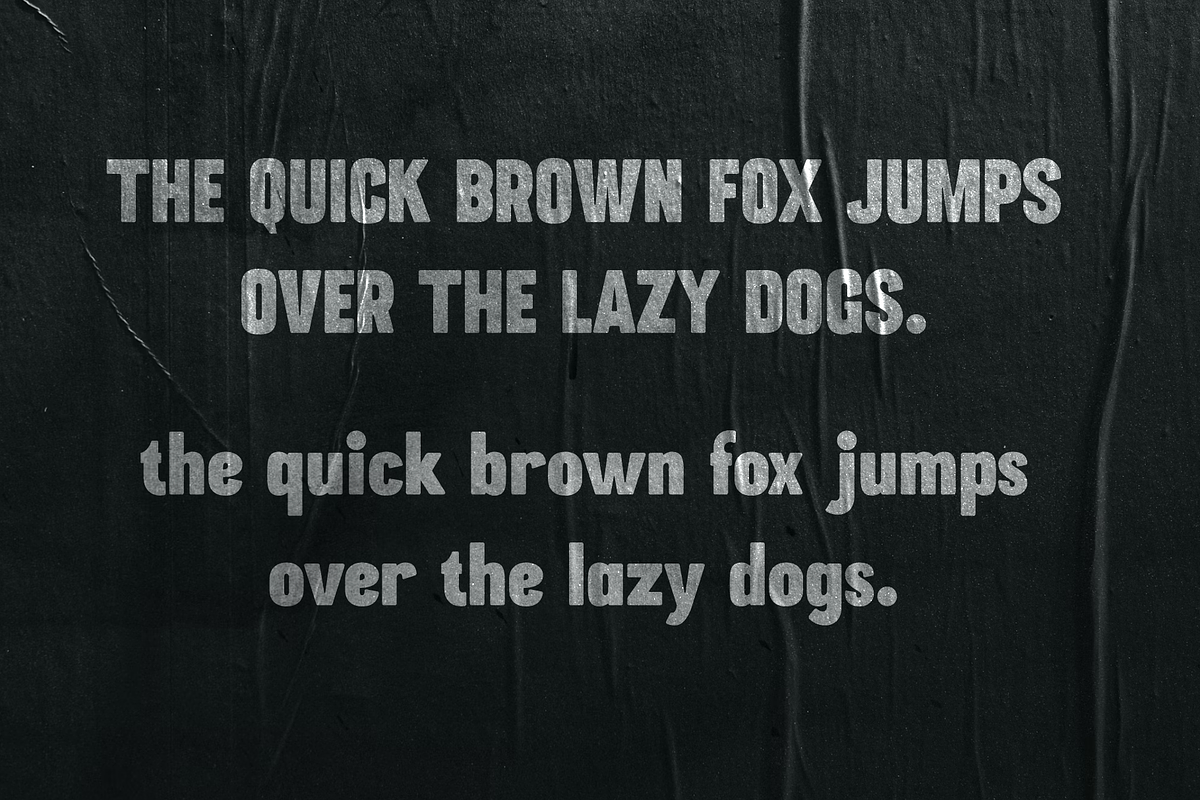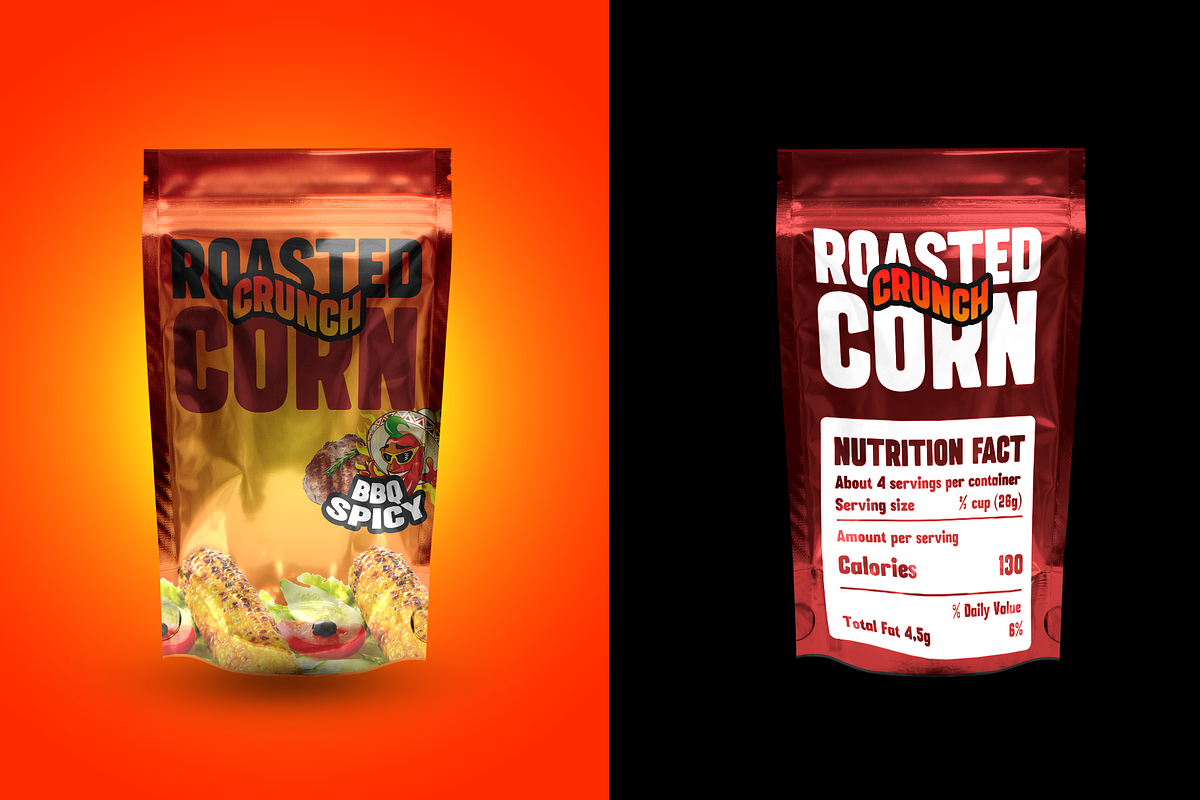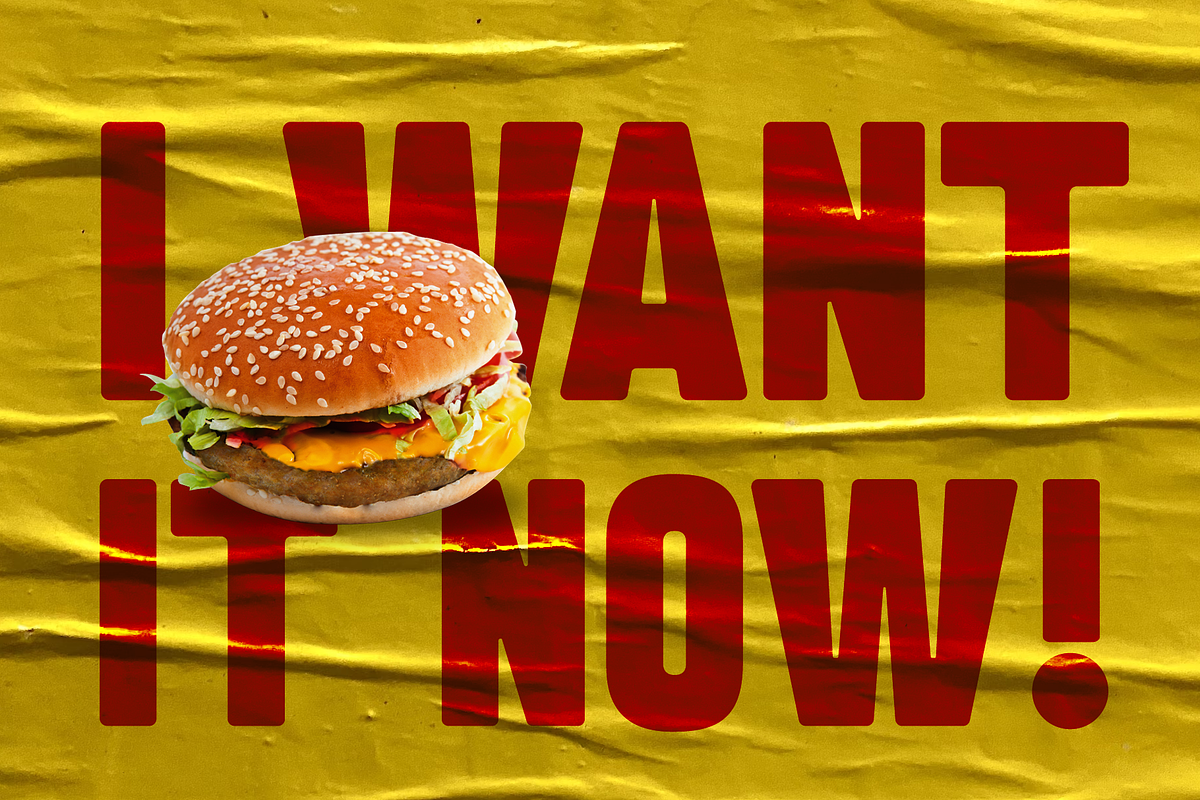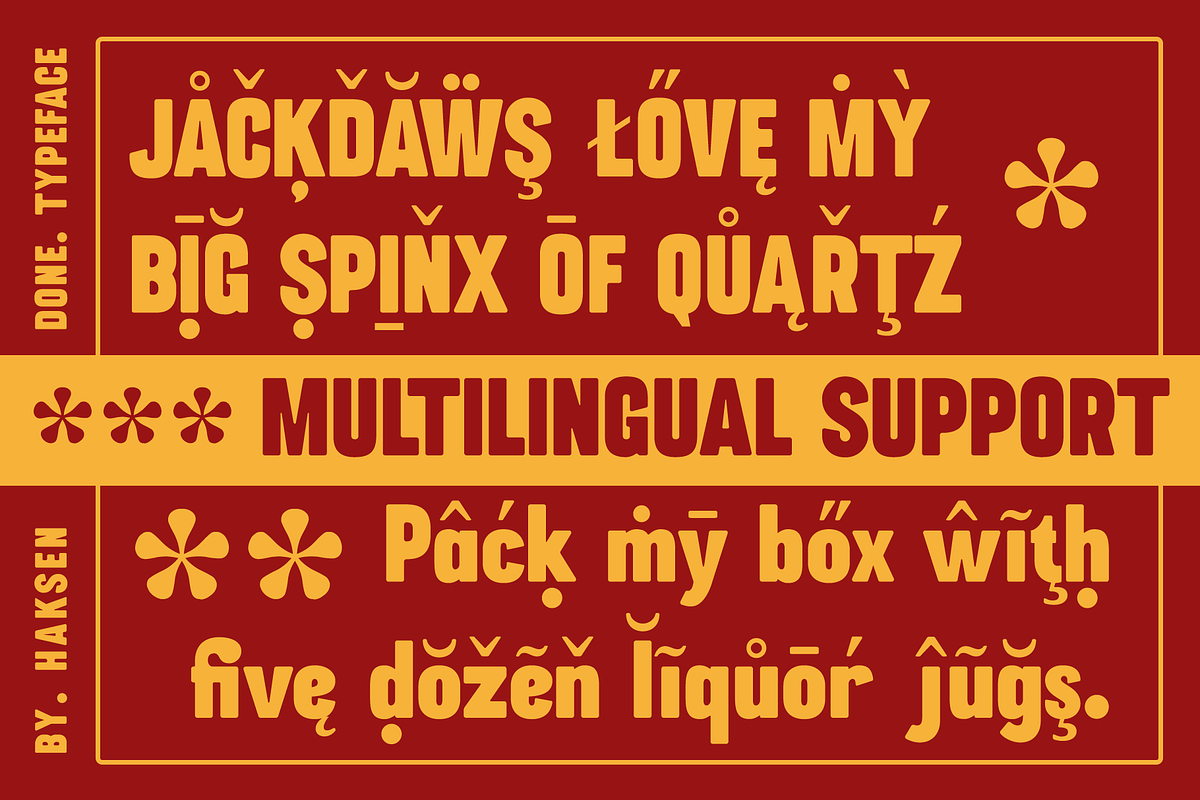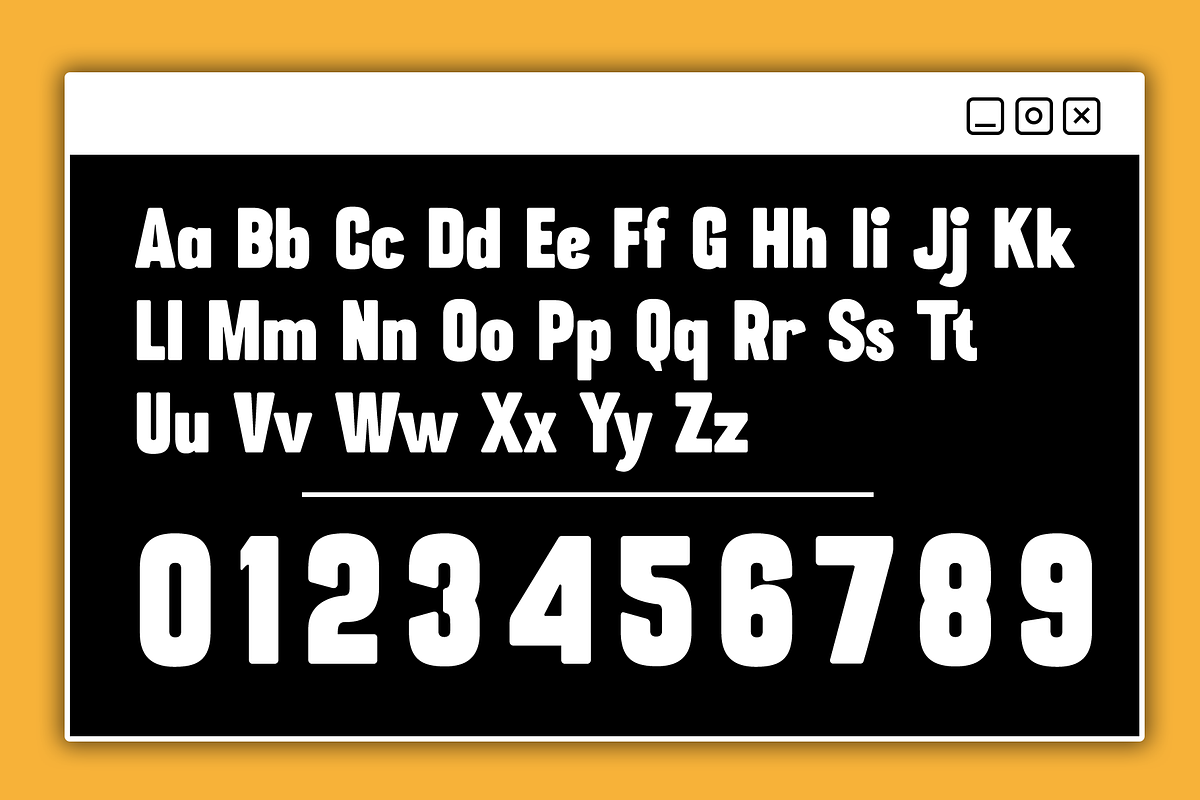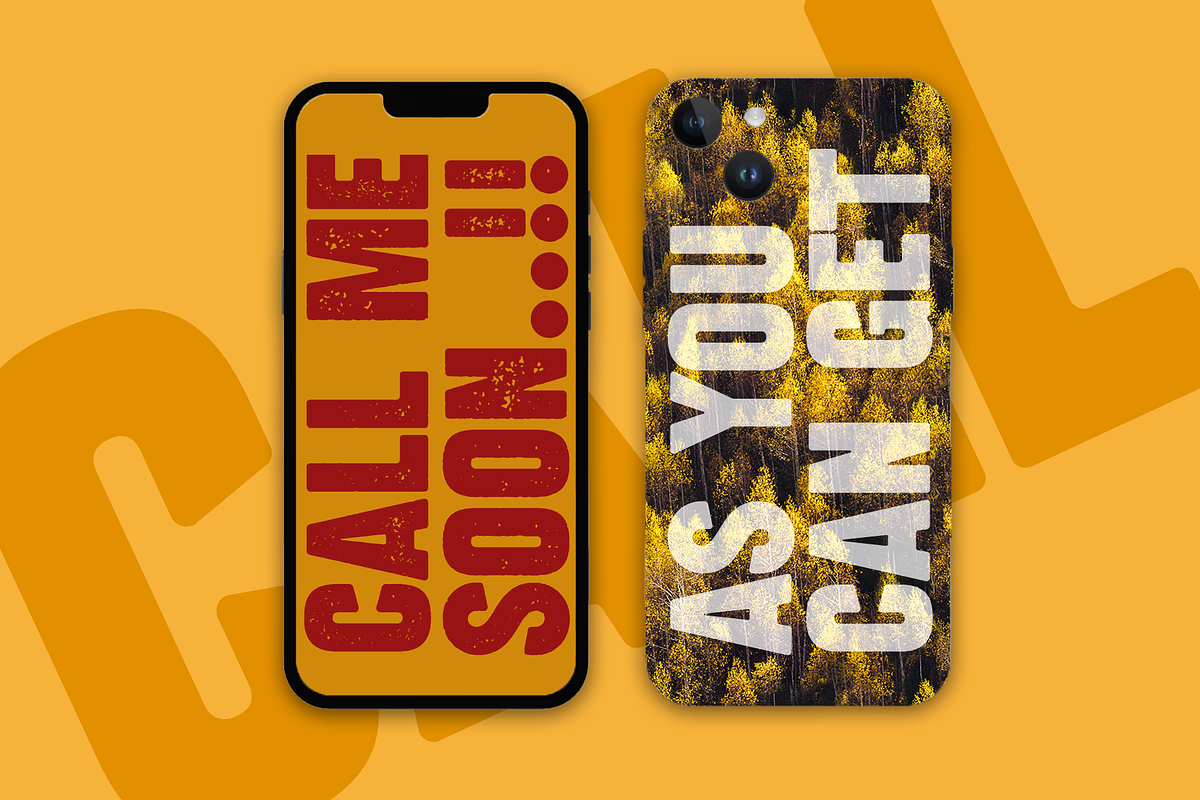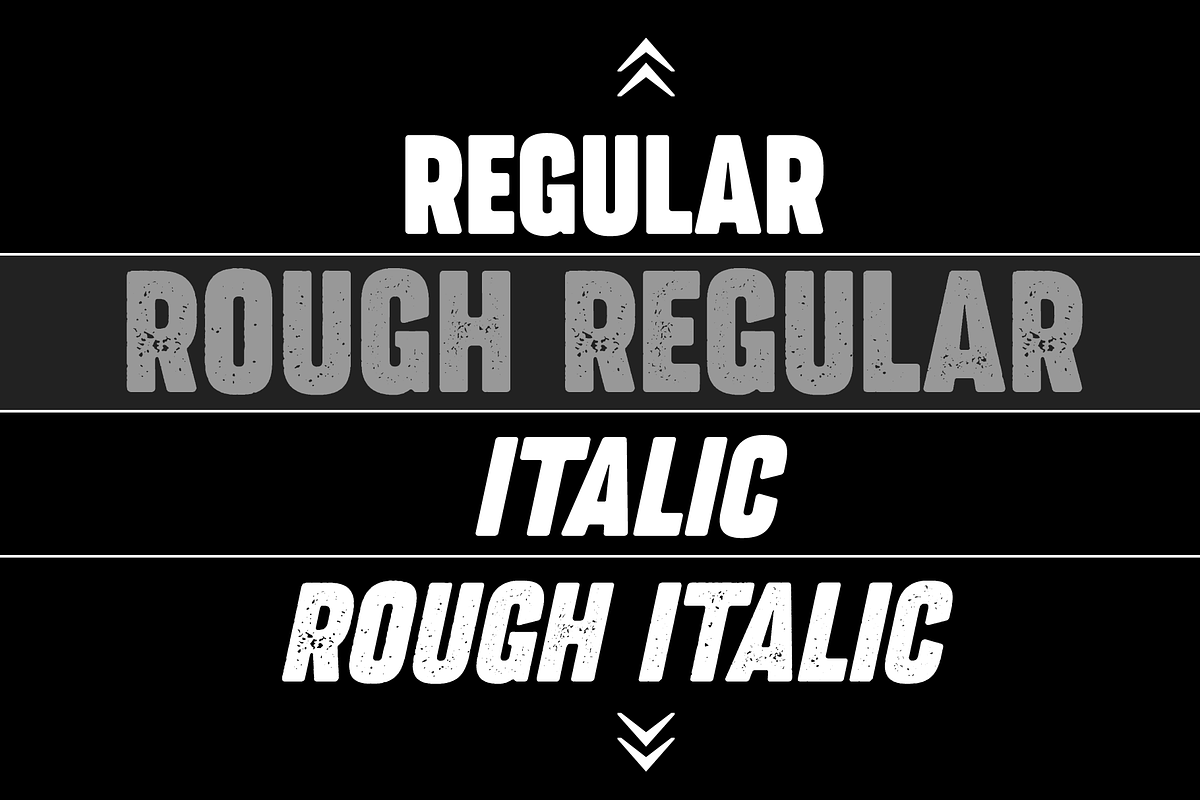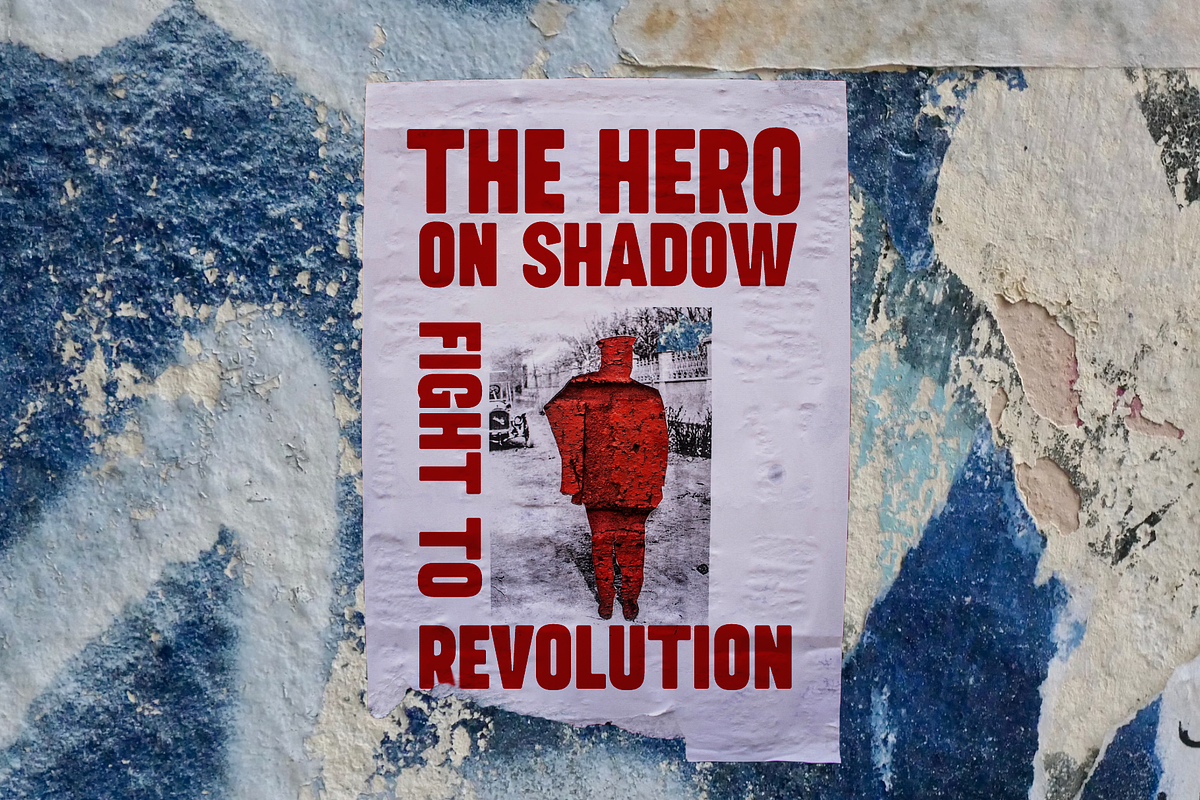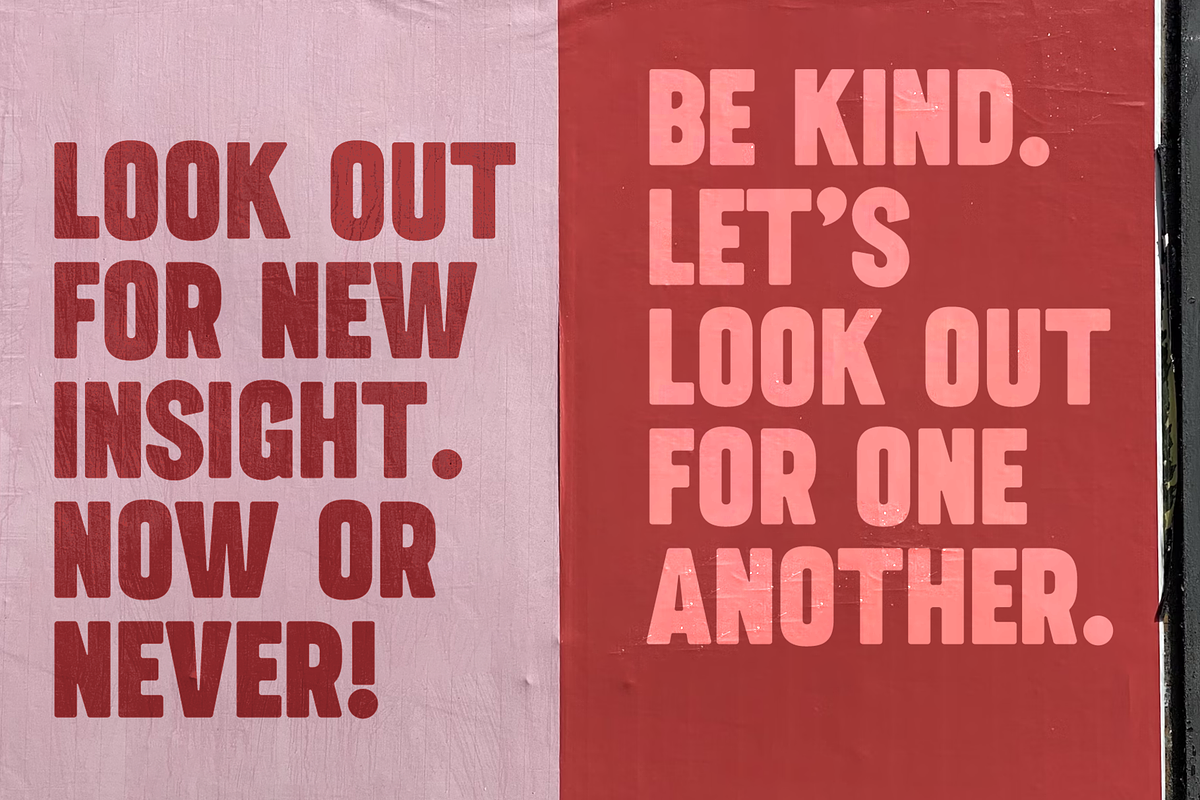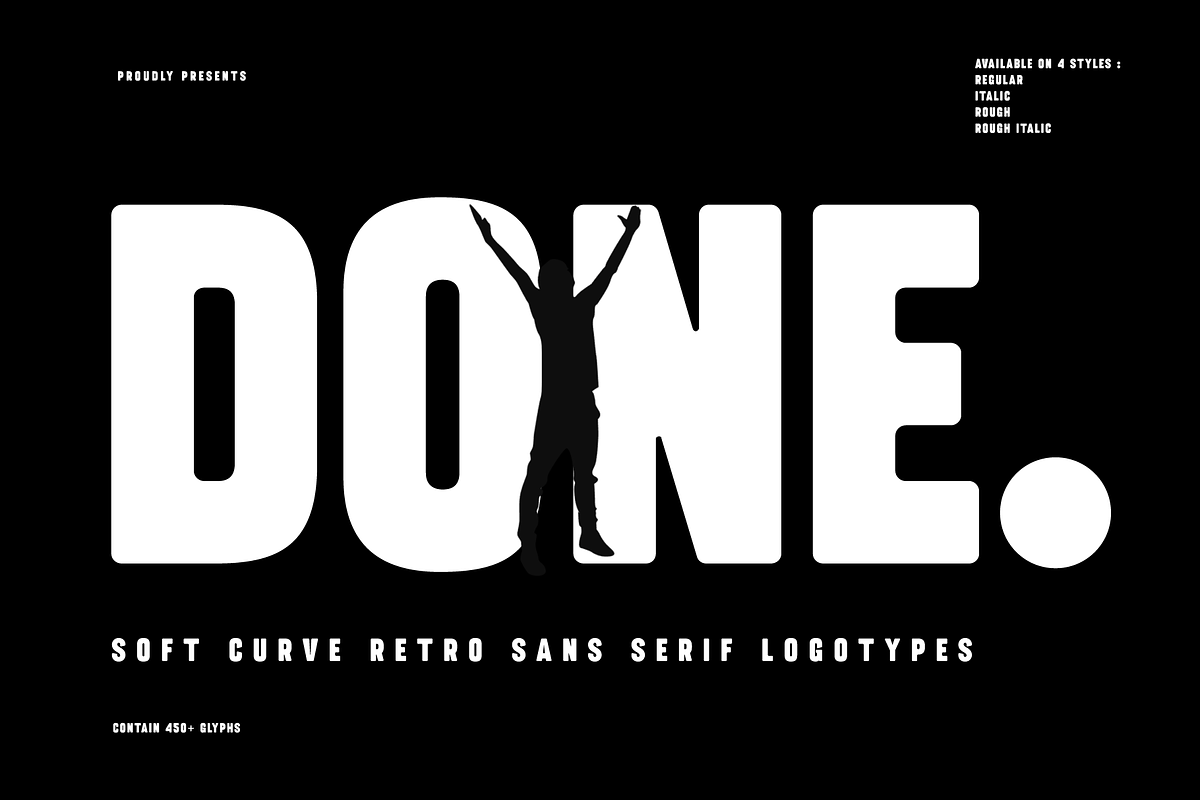
Done - Retro Rounded Sans
Presenting Done is a retro sans serif font with a bold and striking appearance. Its substantial weight makes it an excellent choice for titles and packaging, ensuring your text stands out with confidence. The font features slightly rounded edges, adding a subtle softness to its otherwise strong and assertive design. Perfect for making a statement, Done combines vintage charm with modern readability.
A versatile and modern typeface characterized by its narrow, streamlined letterforms. This font is ideal for space-efficient design, offering a clean and elegant aesthetic without compromising readability.
Regular (Clean), Rough and Italic version
Character set A-Z in Uppercase and Lowercase
Accented Characters
Multiple Languages Supported